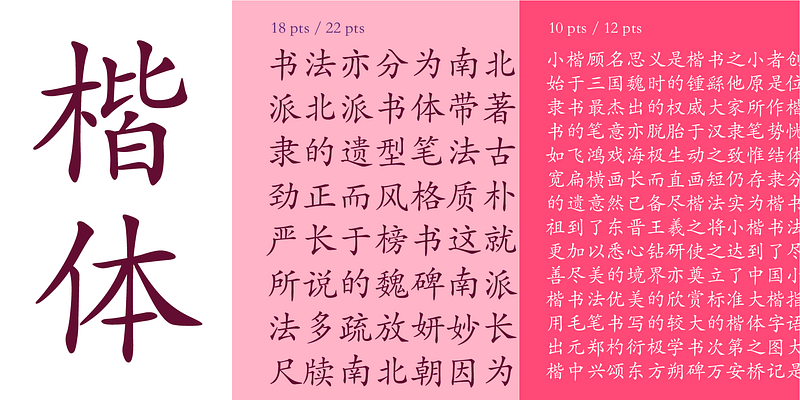
Adobe Kaiti Font is perfect for Chinese calligraphy projects, traditional Asian restaurant menus, martial arts academy branding, cultural heritage exhibits, educational Chinese language materials, traditional tea house signage, oriental art galleries, and authentic Asian cultural campaigns. This elegant typeface excels in applications where Chinese calligraphy traditions and Asian cultural authenticity are essential.
What makes Adobe Kaiti Font so exciting is its masterful ability to capture the flowing grace and artistic heritage of traditional Chinese brush calligraphy through authentic, hand-brushed letterforms that embody the philosophical depth and aesthetic beauty of East Asian writing traditions. The font features sophisticated character shapes with natural brush stroke variations and traditional styling that evoke images of ancient scrolls, meditation gardens, and the timeless wisdom of Chinese literary culture. Its culturally-sensitive design philosophy combines historical authenticity with contemporary functionality, making it perfect for cultural brands seeking to convey respect for Asian heritage, artistic tradition, and connection to Chinese language communities and calligraphy arts.
Adobe Kaiti Font belongs to the traditional Chinese font family, specifically designed for authentic Asian typography and cultural documentation applications. This typeface family emphasizes calligraphic visual impact through brush-inspired styling and traditional character elements, ensuring respectful cultural presentation across various educational and heritage-focused design projects.
Honor traditional Chinese artistry with Adobe Kaiti Font Free Download, a typeface that embodies the sophisticated beauty of classical Chinese calligraphy and cultural heritage. This distinguished font delivers exceptional authenticity for Asian applications, featuring comprehensive Chinese character sets with traditional brush strokes and cultural punctuation marks that capture the essence of philosophical wisdom and artistic expression. Its masterfully crafted letterforms maintain excellent legibility while preserving the authentic calligraphic aesthetic across various sizes, from delicate poetry scrolls to large cultural center entrance displays. The font's distinctive traditional personality makes it invaluable for designers creating Asian brands, cultural materials, and educational content where conveying respect, authenticity, and traditional Chinese artistic heritage is crucial for engaging Chinese-speaking audiences and cultural communities seeking genuine Asian aesthetic experiences.